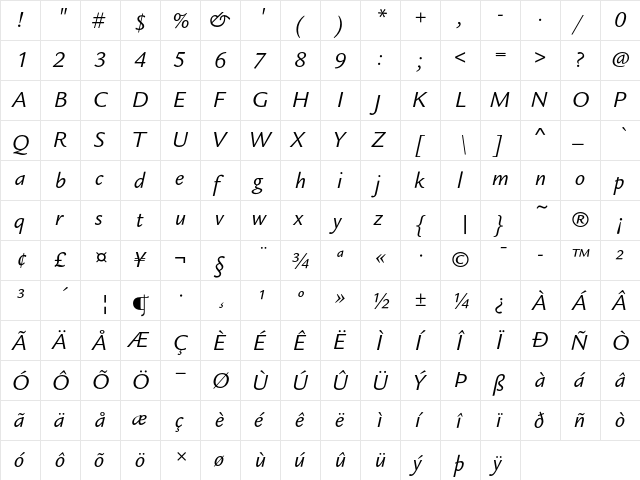
Legacy Sans ITC Book Italic
Design Context for Legacy Sans ITC Typeface
Legacy Sans ITC is a composed and adaptable typeface that performs quietly and consistently across a wide range of design contexts. The dynamic lean of this cut emphasises speed and emphasis in any layout.
Pro Tip: Use Legacy Sans ITC for emphasis, pull quotes, and subheadings where its slanted energy can add rhythm to the layout.